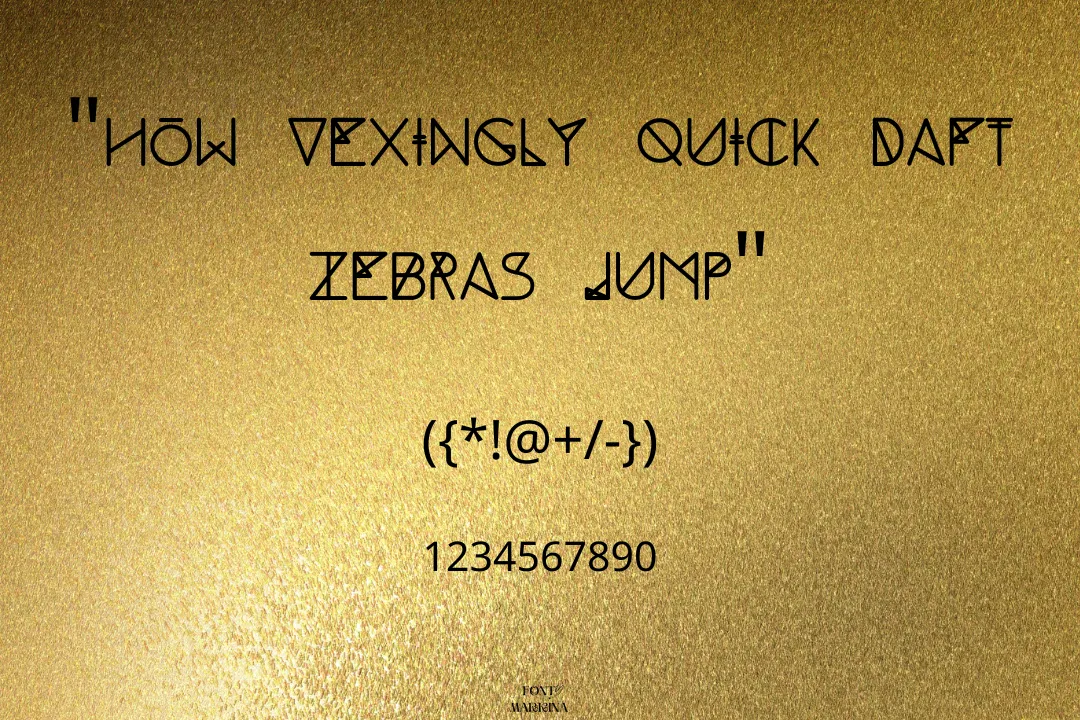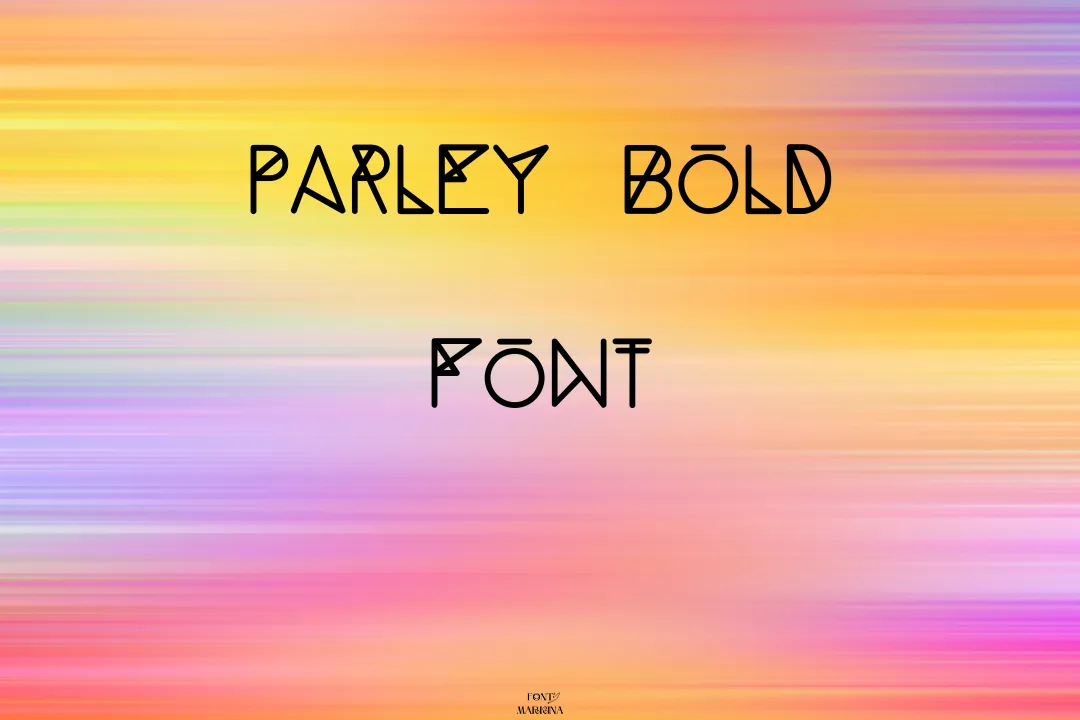
Parley Bold font is a stylish and modern font created by the designer Filipe Rolim. With its bold and clean lines, Parley Bold is the perfect choice for a wide range of design projects. The sharp edges and sleek curves of this typography make it stand out and grab attention, while its simplicity and elegance give it a timeless appeal.
One of the standout features of Parley Bold is its versatility. This font works equally well in both digital and print media and can be used for everything from logos and headlines to body text and captions.
Its bold weight and clear legibility make it an ideal choice for any design that needs to communicate a strong and confident message. For CSS, you can copy and paste your text in suitable formats. Here Jojo Font is the same alternative to this texture.
Another advantage of the Parley Bold typeface is its wide language support. With its clean and modern design, Parley Bold is sure to make a powerful impression and help your message stand out from the crowd. The online generator tool of this family is effective in achieving colorful graphic designs.
Who Can Use Parley Bold Font
Parley Bold texture is a highly versatile font that can be used for a wide range of purposes. Some common uses of this typography include branding and logo design, advertising and marketing materials, website design, packaging design, and social media graphics. The bold and clean lines of the font make it an ideal choice for projects that require a modern and sophisticated look.
In the field of advertising and marketing, It is often used to create eye-catching headlines and attention-grabbing slogans. Its bold weight and clear legibility make it easy to read from a distance, making it a great choice for billboards, posters, and other large-format advertising materials. If you want a more wonderful look, then make the pairing of JMH Carrera Font with this family.
In the world of packaging design, Parley Bold is a popular choice for creating labels, tags, and other packaging elements. Its bold and modern look makes it stand out on the shelf, helping products catch the eye of consumers and stand out from the competition.
What is the type of Parley Bold Font?
This texture falls in the classification of the Fancy family and has different glyphs and rounded characters.
Where we can use Parley Bold font?
It can be used for a wide range of design projects, including branding and marketing materials, website design, packaging design, social media graphics, and more.